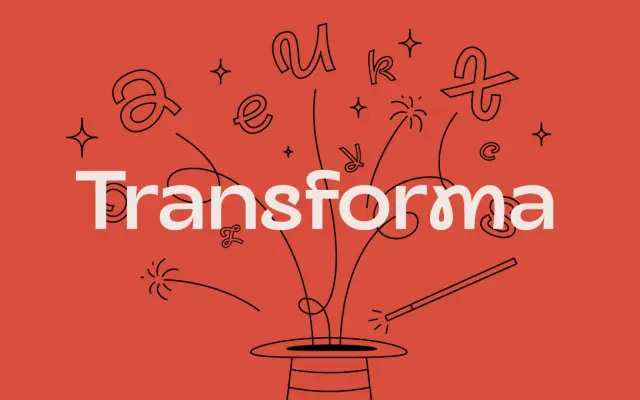
Transforma
Fontfabric · Ani Dimitrova, Viktoria Usmanova, Svetoslav Simov · 2024
A 22-style family from Fontfabric that blends a geometric sans, a handmade script and a hybrid Mix subfamily into one system.
Released in March 2024, Transforma spans three distinct structural modes: a nine-weight sans running from Extra Light to Extra Black, a five-weight script, and a five-weight Mix that merges the two. Ink traps and vertical cuts add character at heavier weights, while the variable fonts cover the full expressive range in a single file. Latin Extended and Cyrillic are both supported, broadening its use across international branding and editorial projects.
Transforma straddles sans-serif, script and a hybrid Mix subfamily, making display the most accurate primary category. Its high-contrast weights, ink traps and mixed-structure styles position it firmly as a decorative display system rather than a workhorse text face.